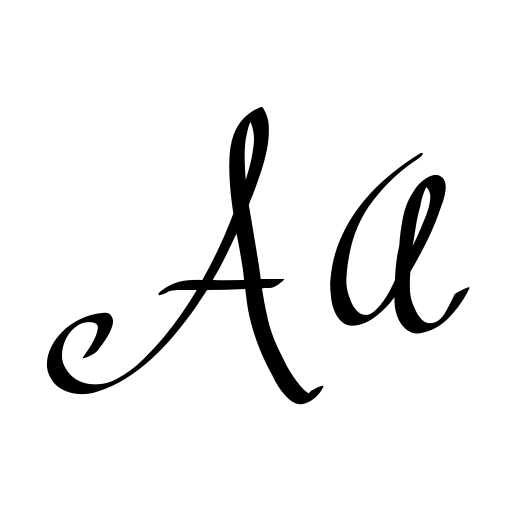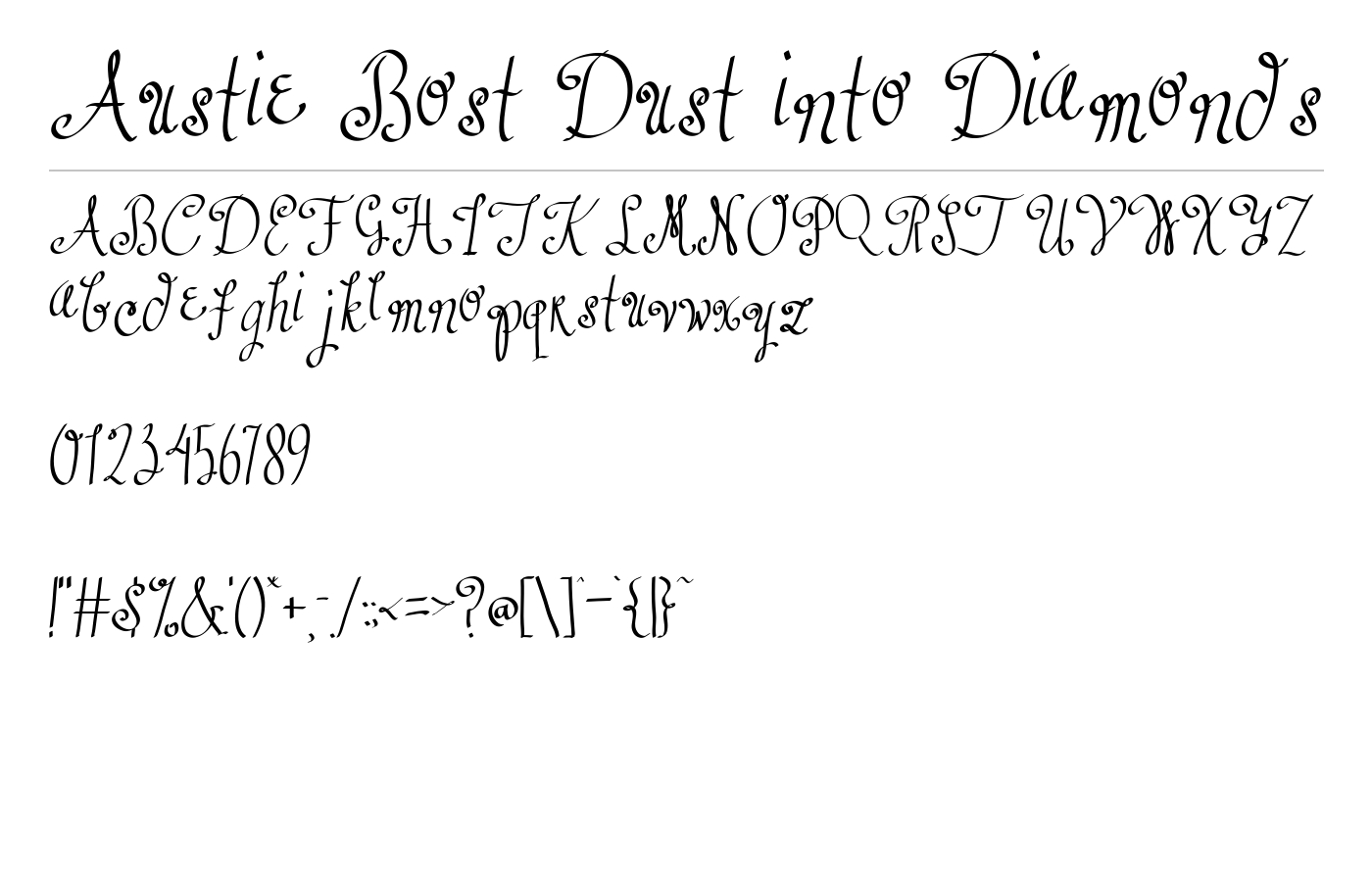
Austie Bost Dust into Diamonds is a whimsical, decorative script font with delicate, flowing strokes and unique, curly embellishments that give it an enchanting, hand-drawn charm. Its thin, elegant lines combined with quirky letterforms create a vintage, artistic feel, making it perfect for creative projects, invitations, and branding that seeks a playful yet sophisticated personality. This font shines best in large sizes for headlines or logos where its intricate details can truly stand out.
| Font family | Austie Bost Dust into Diamonds Font |
| Designer | Austin Owens |